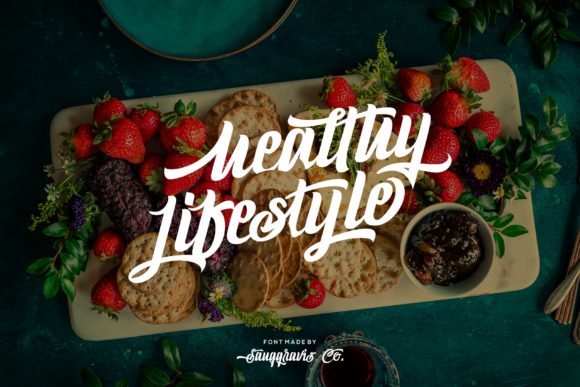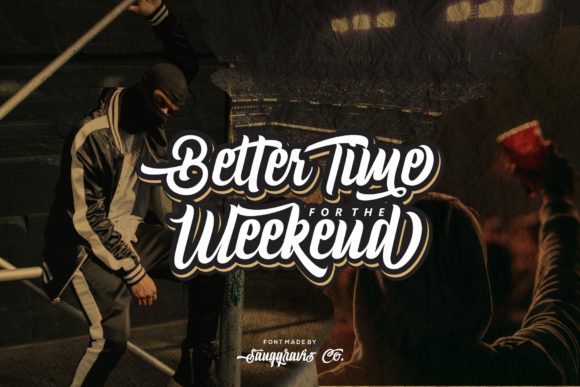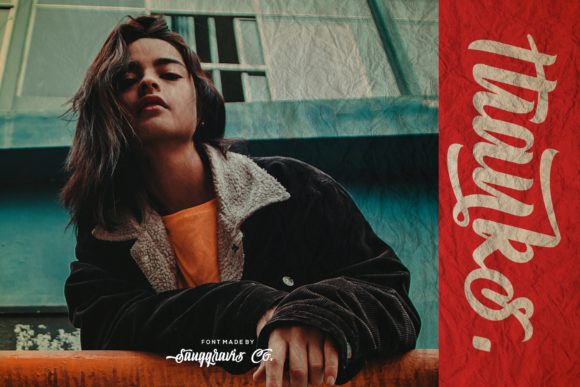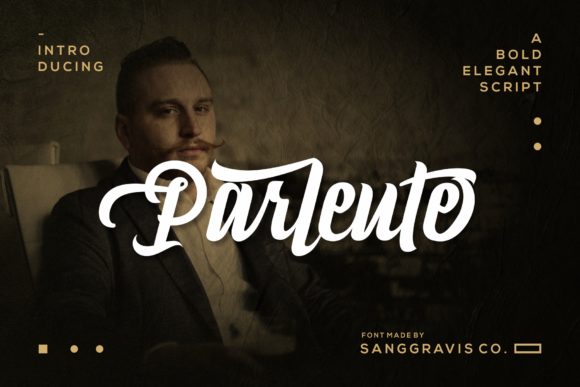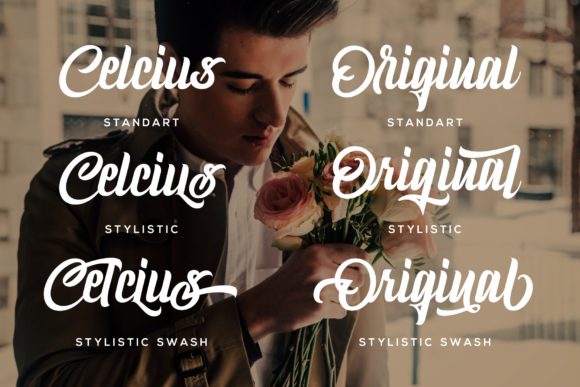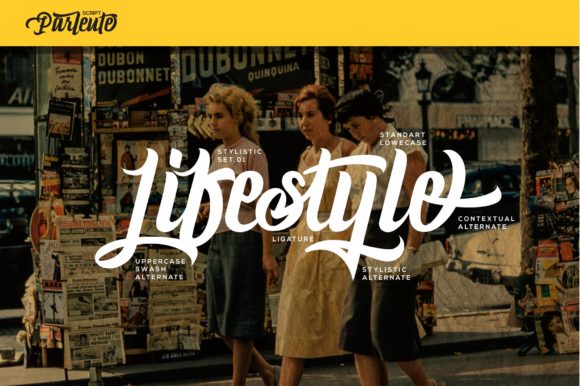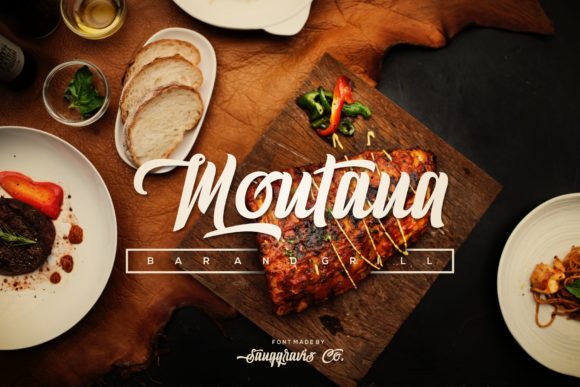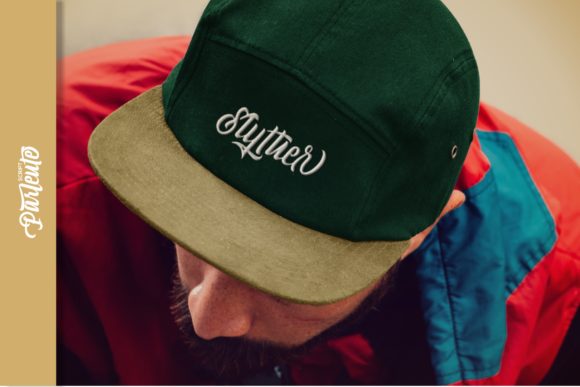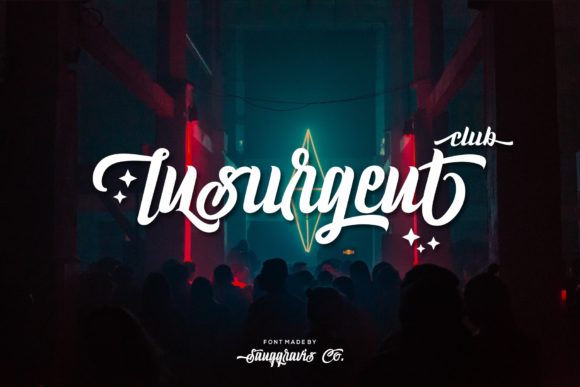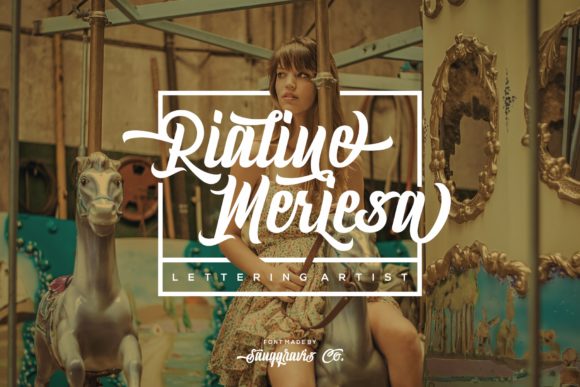
Parlente Font
About Parlente Font
Introducing “The Parlente,” a striking script font inspired by the lifestyle of the 1920s. This font is not just a typeface; it’s a design asset crafted with class, glamour, discipline, and cleanliness, drawing inspiration from the elegance of the 1920s. “The Parlente” is a versatile font with numerous customization options, making it a standout choice for a variety of design applications.
“The Parlente” stands out with its striking script that embodies the class and glamour of the 1920s. The disciplined and clean design adds a touch of sophistication to this font, making it suitable for a wide range of creative projects. Whether you’re working on branding, invitations, posters, or any design that requires a touch of vintage elegance, this font delivers with its distinctive and versatile style.
The 1920s inspiration is evident in the design, capturing the essence of that era’s lifestyle. “The Parlente” is more than just a font; it’s a design companion that allows for customization, providing you with various choices to tailor the font to your specific needs.
Its versatility and customization options make “The Parlente” suitable for a variety of applications. Logos designed with this font convey a sense of vintage charm and sophistication. Branding materials, invitations, and other designs crafted with “The Parlente” carry a timeless and elegant aesthetic, making them visually striking and memorable.
In summary, “The Parlente” is a font that pays homage to the 1920s lifestyle, offering a striking script with class, glamour, discipline, and cleanliness. Embrace its versatility for branding, invitations, posters, and more, and let “The Parlente” transport your designs to the elegance of a bygone era.